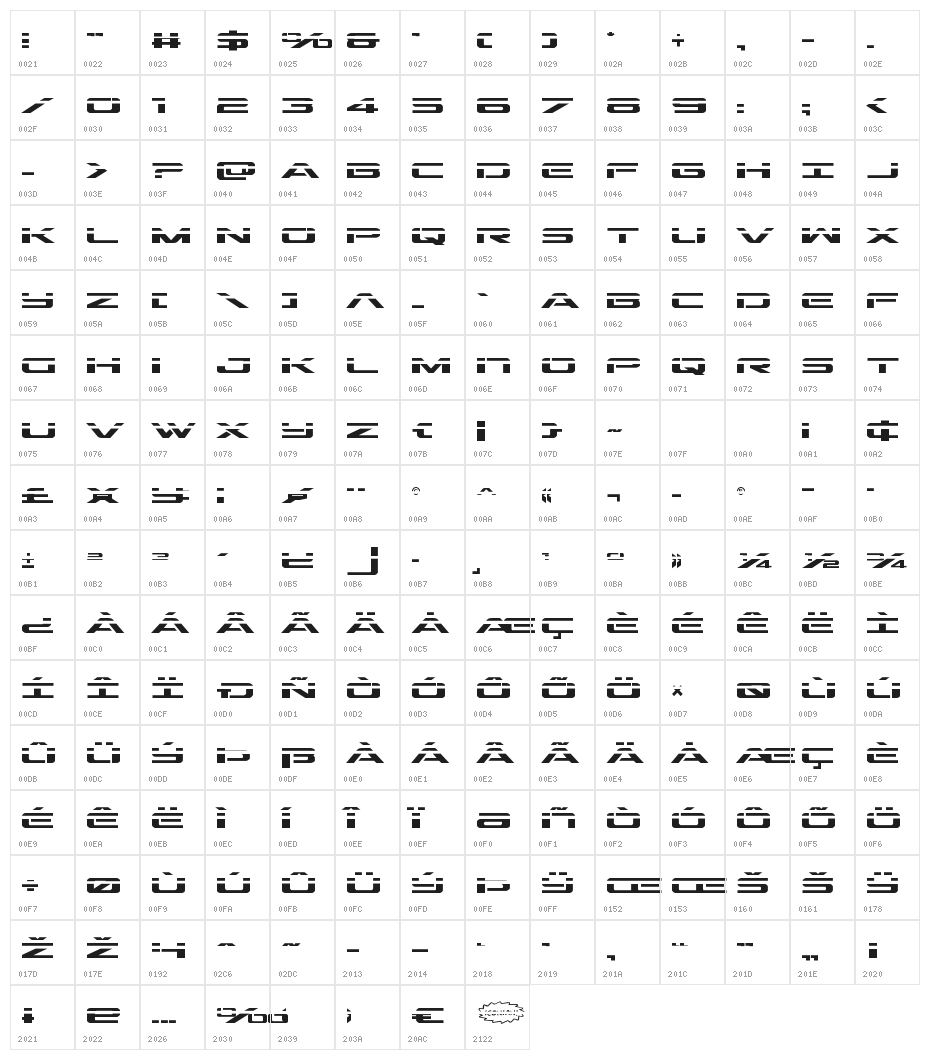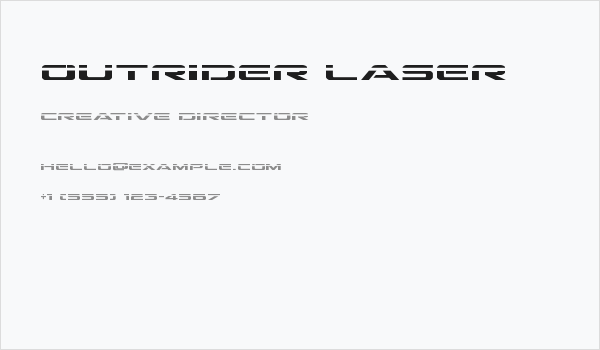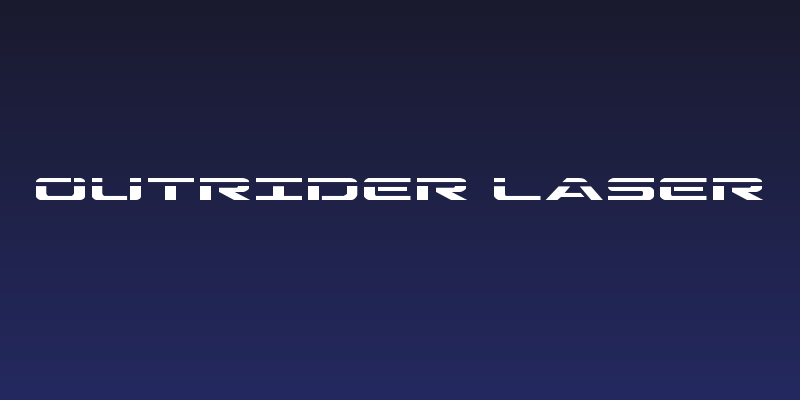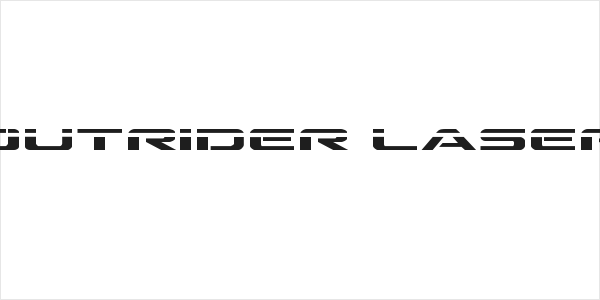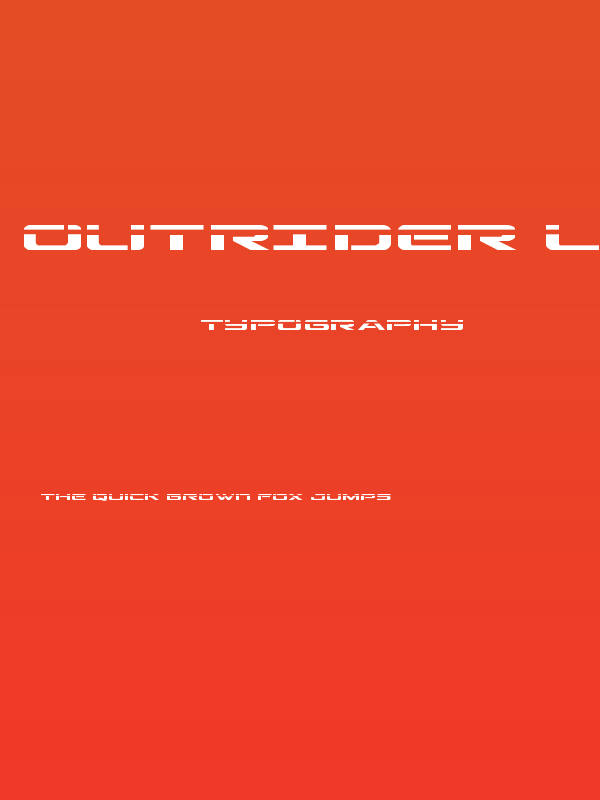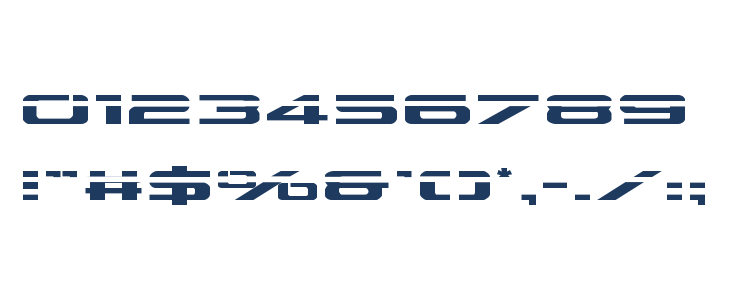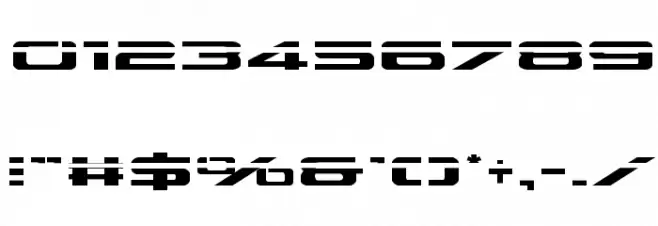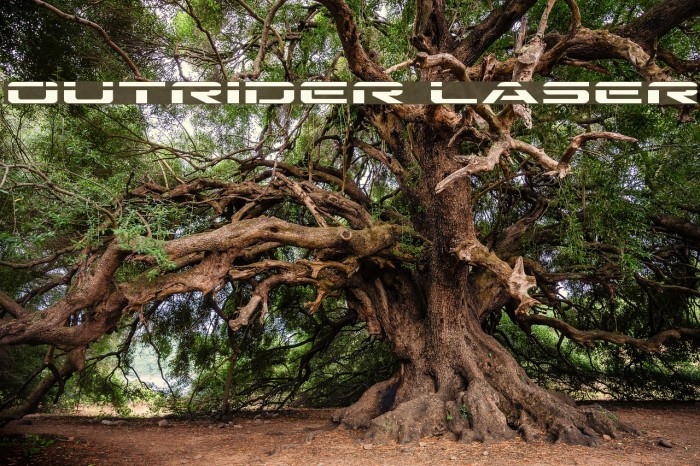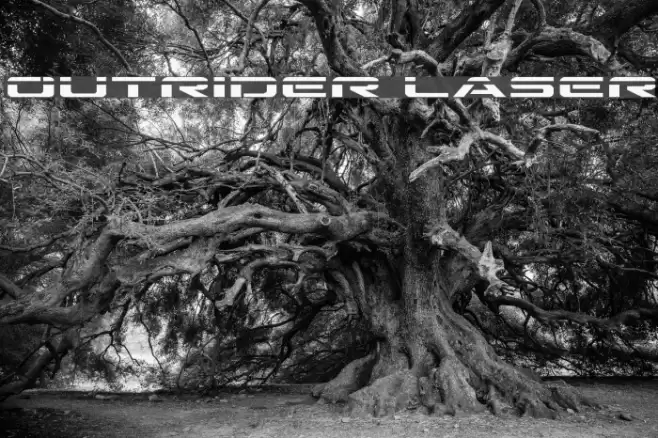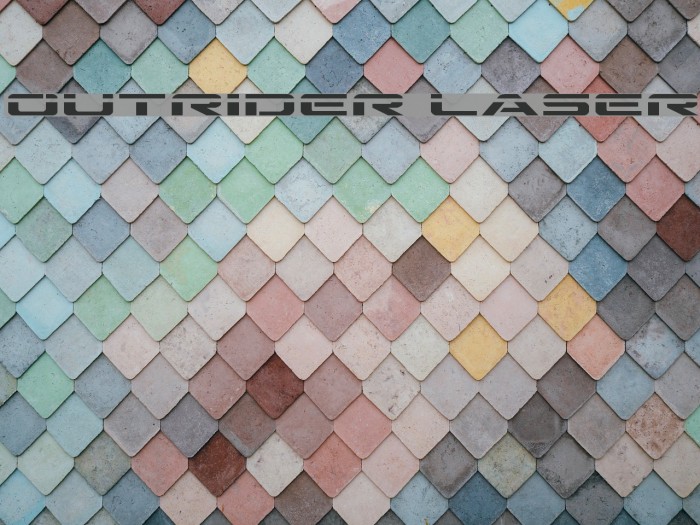
Outrider Laser Font
Outrider Laser Description
This font features a futuristic and angular design, characterized by sharp edges and a geometric structure. The letters are bold and have a distinct, modern appearance, with a unique cut-out style that adds a sense of movement and dynamism. The uppercase and lowercase letters maintain a consistent style, with the numbers and special characters following the same design principles. The font's aesthetic is reminiscent of sci-fi themes, making it suitable for projects that require a modern and edgy look.
| Proposed Projects | Ideal for sci-fi movie posters, video game titles, tech branding, and futuristic-themed designs. |